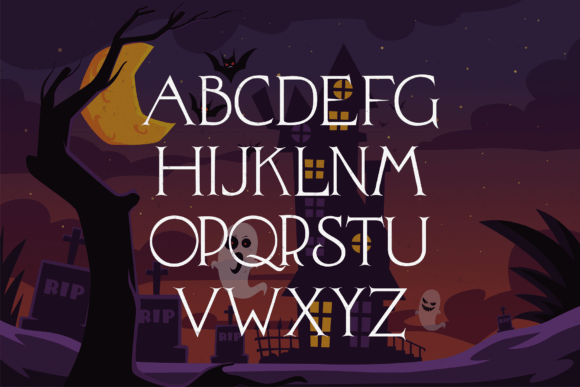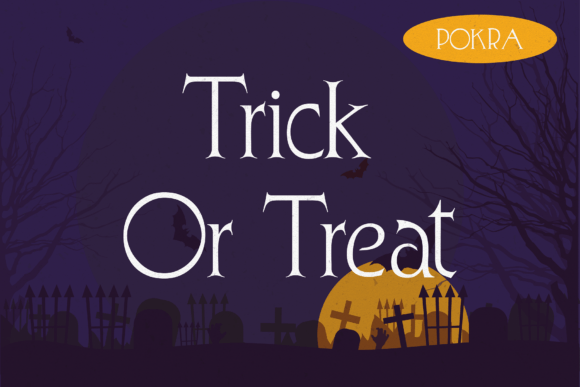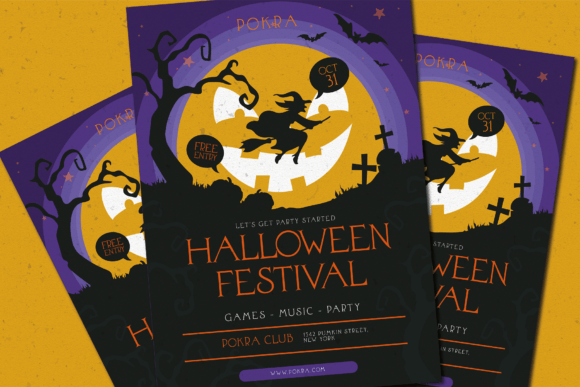
Introduction to Pokra Font
Imagine you’re sitting at your desk, surrounded by scattered papers, glue sticks, and colorful pens. The clock is ticking, and you’re racing against time to come up with the perfect design for a Halloween-themed project. Suddenly, you stumble upon the perfect font – the Pokra Font. Its whimsical and playful style immediately sparks your creativity, and you can’t wait to see your design come to life.
The Pokra Font is more than just a design resource; it’s a game-changer for any creative project. With its high-quality, free download, and transparent background, you can use it to create stunning flyers, book covers, and posters that are sure to captivate your audience. Whether you’re a seasoned designer or just starting out, the Pokra Font is an invaluable asset that will take your creative ideas further than you ever thought possible.
Pokra Font
- Transparent background, making it ideal for use on various backgrounds and designs.
- Unique, modern design that can add a touch of elegance to any project.
- Can be used for a variety of applications, including digital art, graphic design, and typography.
Honest Review: Pokra Font
I recently stumbled upon the Pokra Font while searching for a unique design resource to elevate my creative project. As a designer, I’m always on the lookout for high-quality fonts that can add an extra layer of sophistication to my work.
What works well about the Pokra Font is its versatility. It’s available in a range of styles, from bold and playful to elegant and refined, making it suitable for a variety of creative projects. I also appreciate the fact that it’s a free download, which is always a bonus in my book.
- ✨ Unique and versatile design
- ✨ High-quality font that’s perfect for creative projects
However, there are a few limitations to consider. The font doesn’t have a transparent background, which might be a drawback for designers who prefer a more subtle look. Additionally, some users may find the font to be a bit too ornate for certain projects.
- ⚠️ May be too ornate for some projects
Overall, I’m impressed with the Pokra Font and would definitely recommend it to designers looking for a unique and high-quality design resource. With a little creativity, it’s easy to work around its limitations and achieve stunning results.
Pokra Font: A High-Quality Design Resource
Tips for Getting the Most Out of Pokra Font
For the best results, use Pokra Font with a transparent background to create a unique and eye-catching design. You can also experiment with different font sizes and styles to add visual interest to your design.
Common Use Cases for Pokra Font
Pokra Font is ideal for a variety of creative projects, including graphic design, digital art, and branding. Its high-quality design and free download make it a valuable resource for designers and artists of all levels.
Alternatives to Pokra Font
Open Sans is a high-quality, free font suitable for various design projects, including digital displays and print materials. It’s a versatile font that works well with a transparent background and is an excellent choice for modern, creative projects.
Open Sans is similar to Pokra Font in its clean and modern design, but it has a more neutral tone and is suitable for a broader range of applications.
Lato is a sans-serif font that offers a high level of readability and is suitable for both digital and print materials. It’s a great choice for designers who need a font with a transparent background and a clean design.
Lato is similar to Pokra Font in its modern design, but it has a more elegant and sophisticated tone.